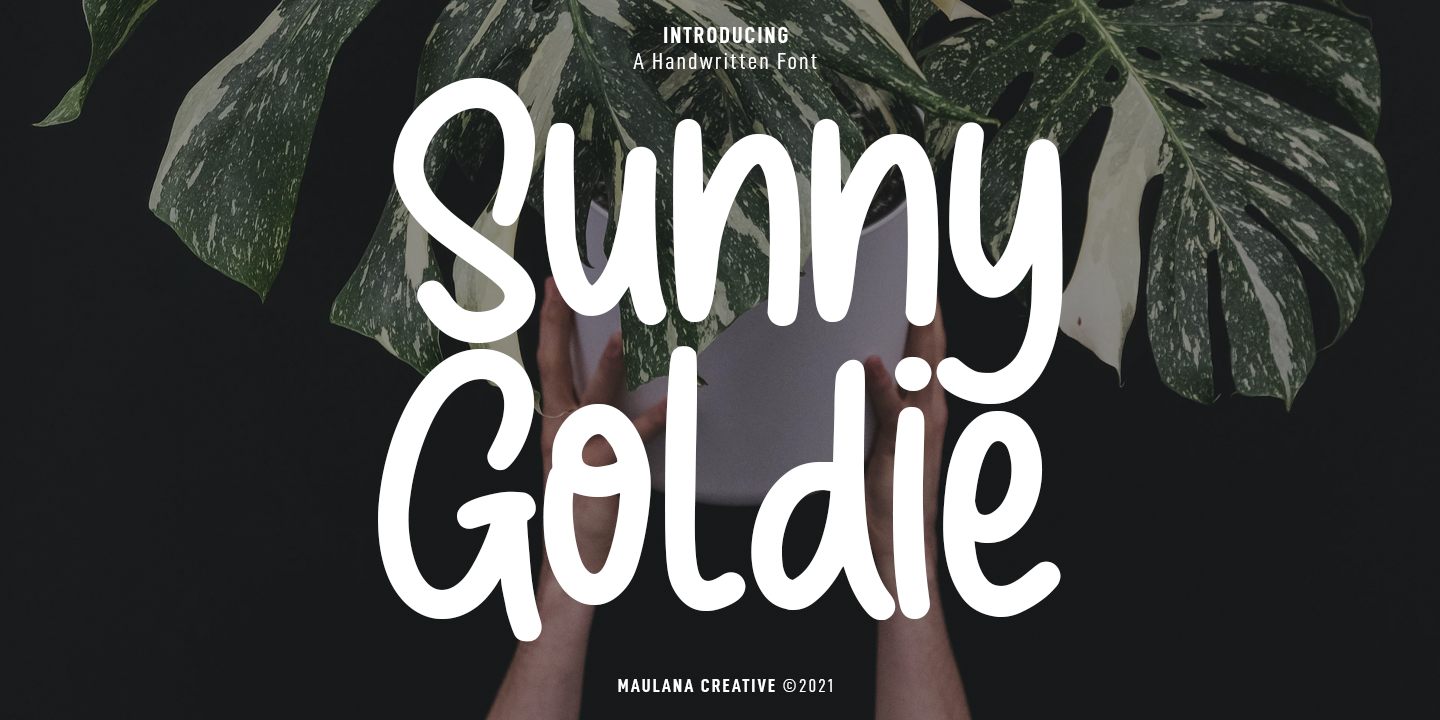
Sunny Goldie Font is perfect for creative projects including wedding invitations, greeting cards, logos, branding materials, social media posts, book covers, packaging design, magazine headers, and artistic posters. This versatile typeface works exceptionally well for luxury brands, fashion websites, beauty products, and elegant signage projects.
What makes Sunny Goldie Font exciting is its sophisticated blend of modern elegance and timeless charm. The font features beautifully crafted letterforms with subtle decorative elements that add personality without overwhelming the design. Its smooth curves and balanced proportions create a sense of warmth and approachability while maintaining professional appeal. The carefully designed spacing and kerning ensure excellent readability across various sizes and applications.
Sunny Goldie Font comes in multiple family variations including regular, bold, italic, and light weights. Each style maintains the distinctive character of the original design while offering different levels of emphasis and visual impact. The complete font family provides designers with flexible options for creating cohesive visual hierarchies in their projects.
Whether you're designing premium packaging, creating eye-catching headlines, or developing brand identity materials, Sunny Goldie Font Free Download delivers the perfect combination of style and functionality. This remarkable typeface transforms ordinary text into compelling visual elements that capture attention and communicate your message with sophisticated flair. Download this exceptional font today and elevate your design projects to new heights of creative excellence.